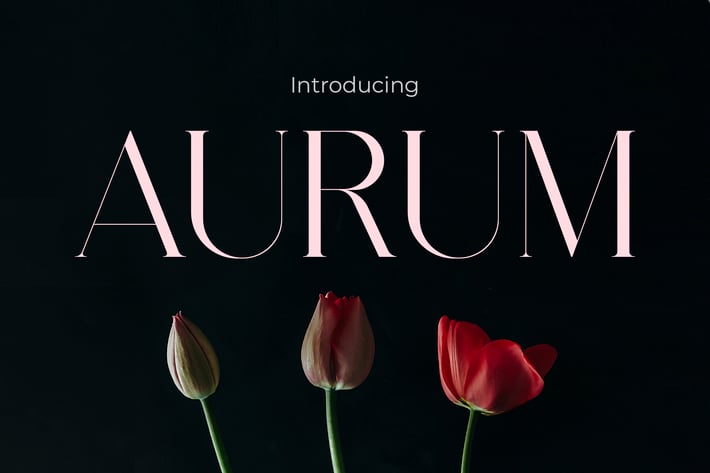
Aurum - Essence of Elegance Modern Font
Aurum - Modern Luxury Typeface
AURUM is an elegant, high-contrast display typeface with refined curves and timeless proportions, perfect for luxury branding, beauty packaging, fashion magazines, and upscale invitations. Its clean terminals, tall letterforms, and soft visual rhythm give it a poised, graceful presence — ideal for modern, sophisticated designs.
AURUM is the perfect companion for designers seeking to elevate product storytelling through visual elegance. From perfume packaging to editorial layouts, and wedding invitations to branding for wellness products, this font brings a premium look without shouting. Use AURUM to create a lasting impression through subtlety, clarity, and graceful visual flow. It’s not just a font — it’s a style statement, ideal for those designing with purpose, poise, and clarity.
Key Features :
Luxury-Inspired Elegance
- High-contrast strokes paired with refined proportions
- Designed for upscale, emotionally resonant visual branding
Versatile Across Touchpoints
- Great for logos, skincare products, wedding stationery, and lookbooks
- Perfect for clean packaging and elevated editorial design
Designed with Precision & Poise
- Clear legibility meets aesthetic finesse
- A harmonious blend of classic and modern